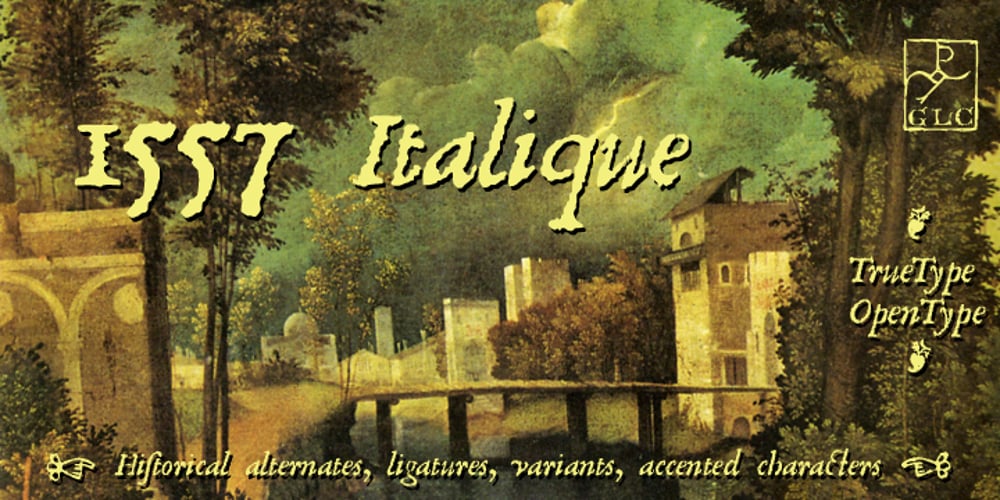
1557 Italique Font Family was designed by published by GLC. 1557 Italique contains 1 styles and family package options. Italic type was invented by Aldus Manutius in 1499 or 1501, first, before to be a style name, it was a plain font familly name. This Italique style font was inspired from these who was used by Jean de Tournes in Lyon (France) to print La mÈtamorphose d’Ovide figurÈe, a splendid book with numerous gothic style wood carved pictures. The original font contains almost all modern usual characters except accented ones, no longer in use on that time. They have been added, with some others, with respect for the original design. . A render sheet, enclosed in file, help to identify various others unusual letters on keyboard. It is used as successfuly as web-site titles, posters and fliers design, editing ancien texts or greeting cards, invitations, gastronomic menus… and much more, as a very decorative and elegant font… It supports easily as enlargement as small size, remaining clear and easy to read from 8 or 9 points to 72 and more, particularly on prints.